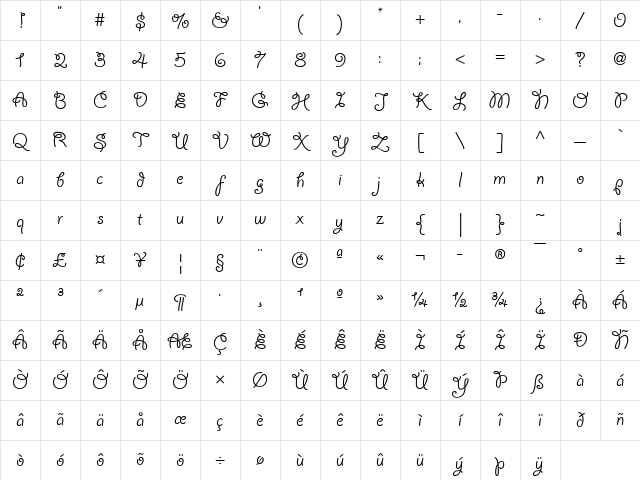
Giddyup Web Regular Free Font
Giddyup Web Regular
Designer: Laurie Szujewska
Design Context for Giddyup Web
Giddyup Web is a composed and adaptable typeface that performs quietly and consistently across a wide range of design contexts.